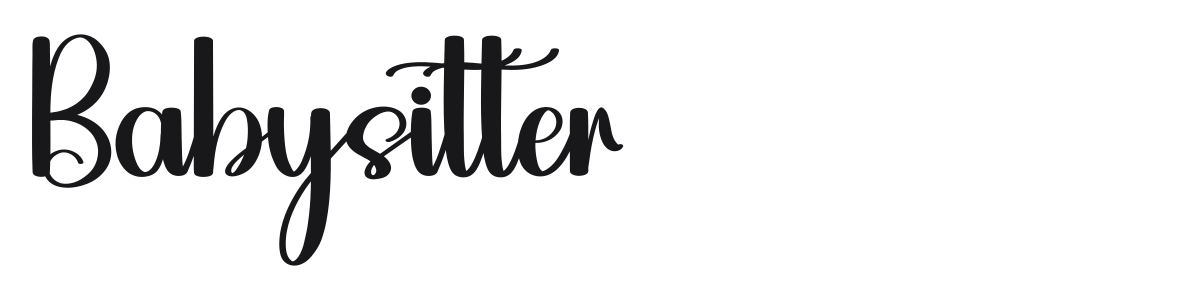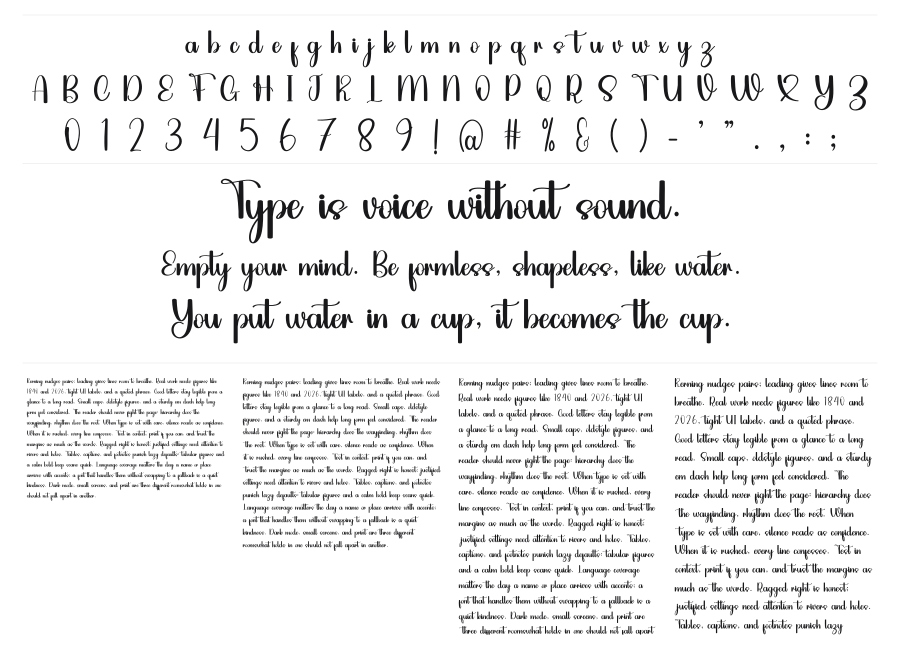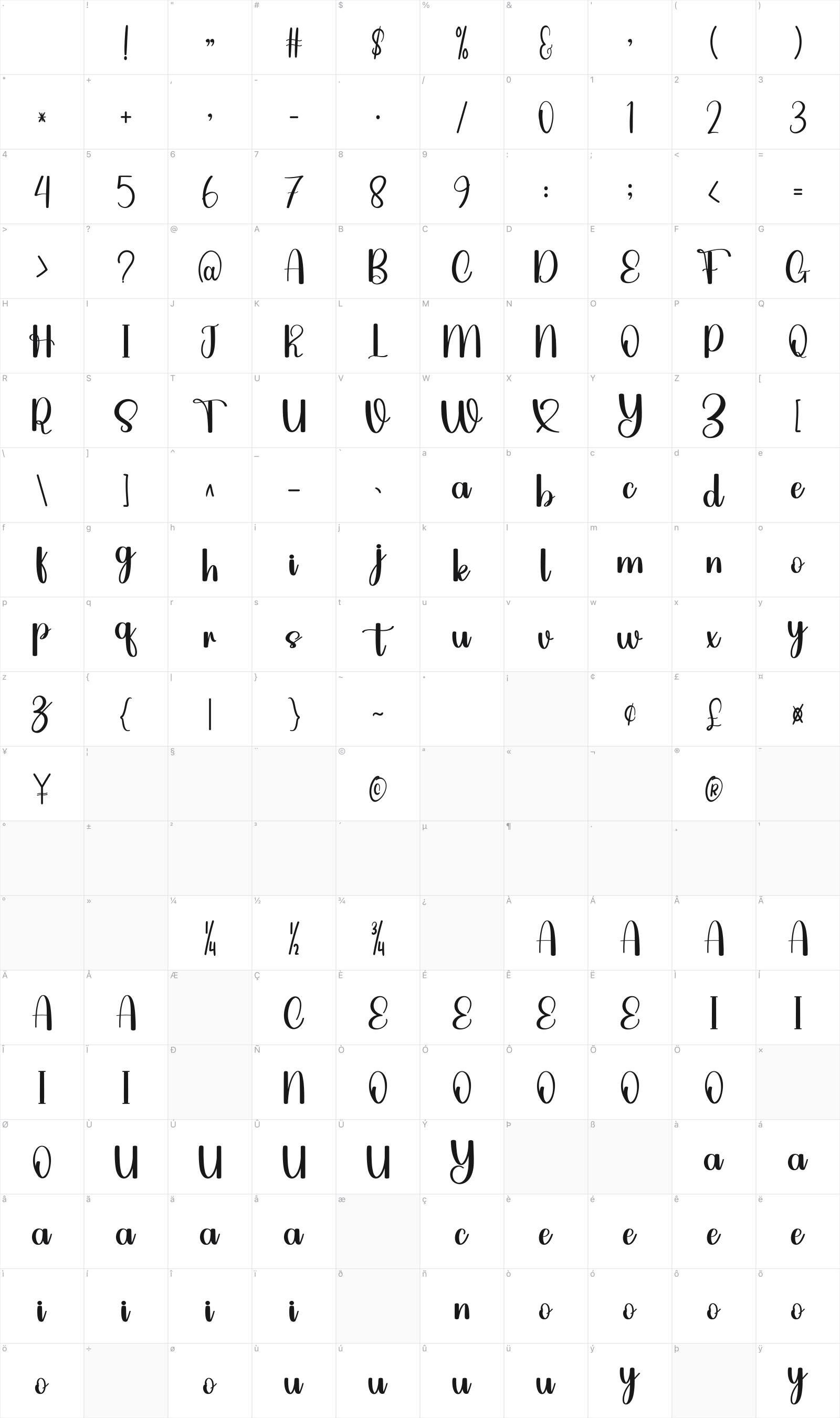
Babysitter
Babysitter is a flowing casual script with a lively bounce and smooth calligraphic connections. The generous loops and organic rhythm give it a handcrafted warmth that works well for branding, packaging, and social media graphics. It sits in that sweet spot between formal calligraphy and loose handwriting.